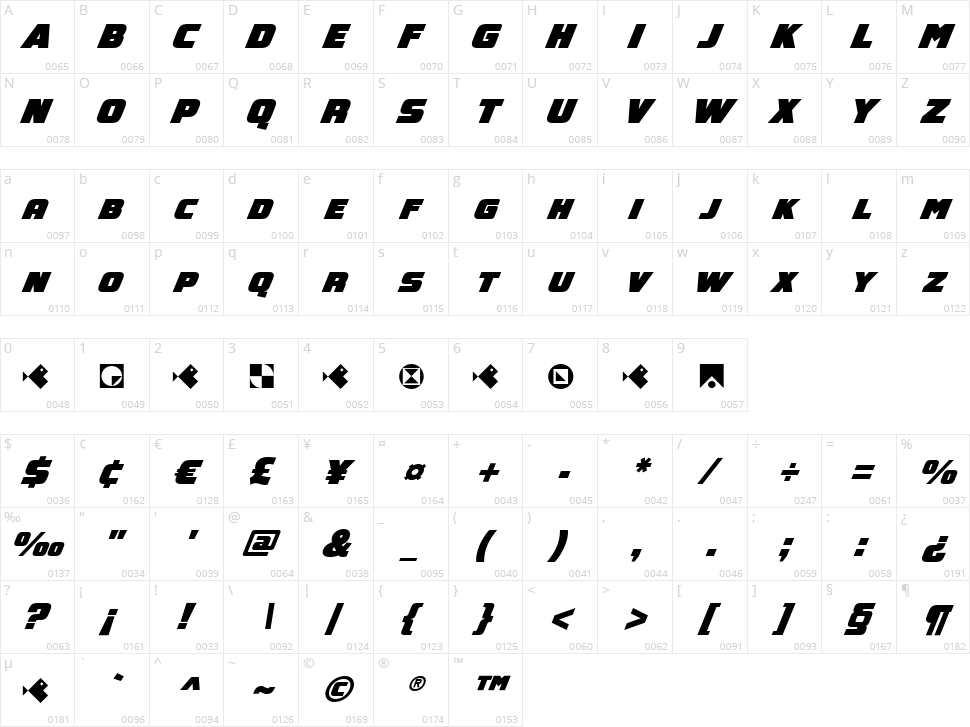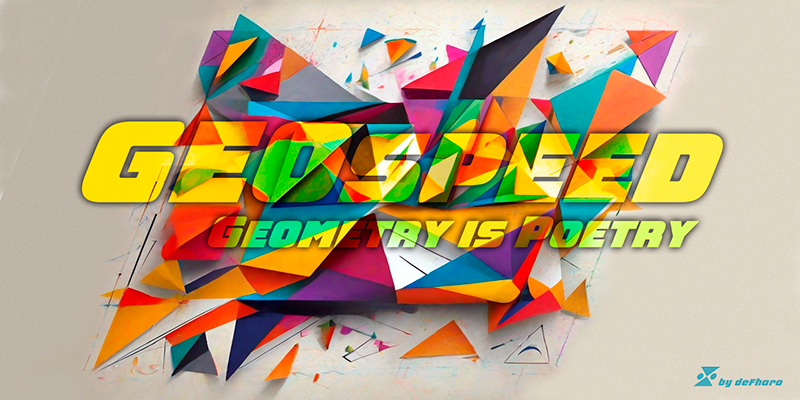
Geospeed SC
Note of the author GEOspeed Small Caps is an innovative typeface, sans serif geometry and a 22 degree slope, includes alternative letters and geometric icons, Small Caps fuses solidity with boldness.
Ideal for advertising, posters or banners, it stands out for its modernity and movement. Advanced Open Type features allow for precise control, while different sets of numbers and letters offer endless creative possibilities.